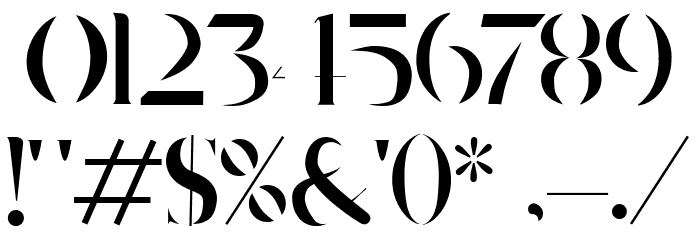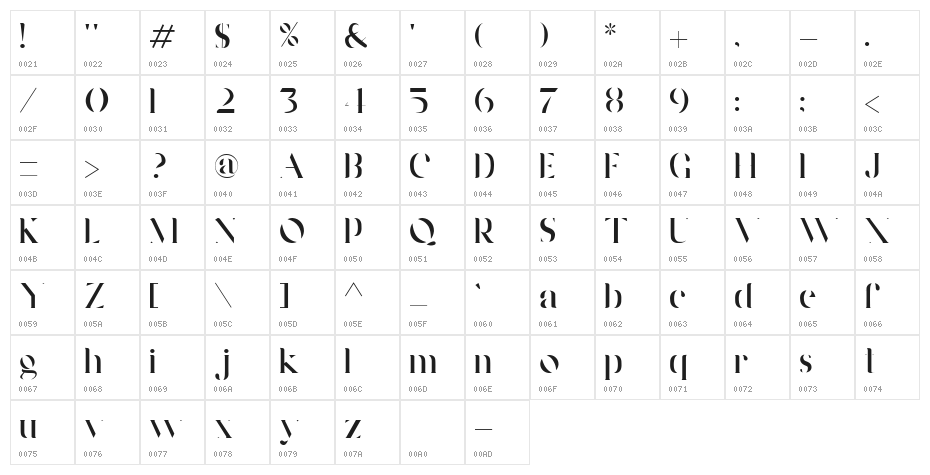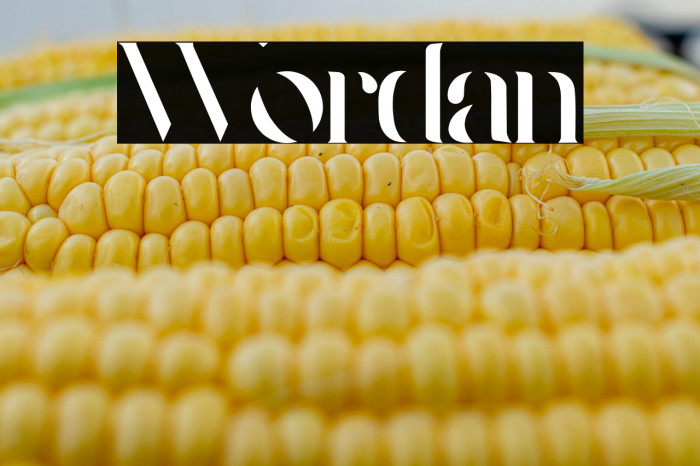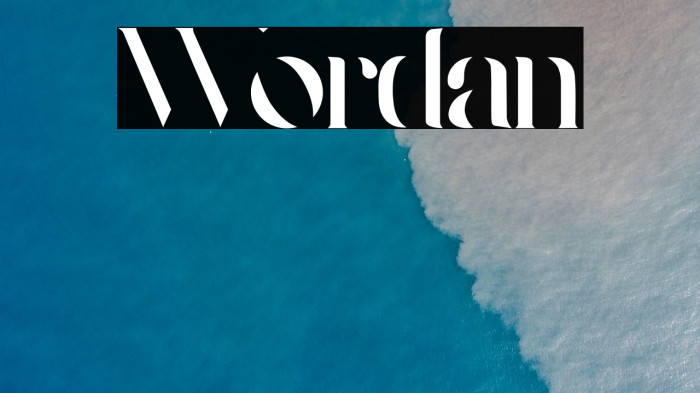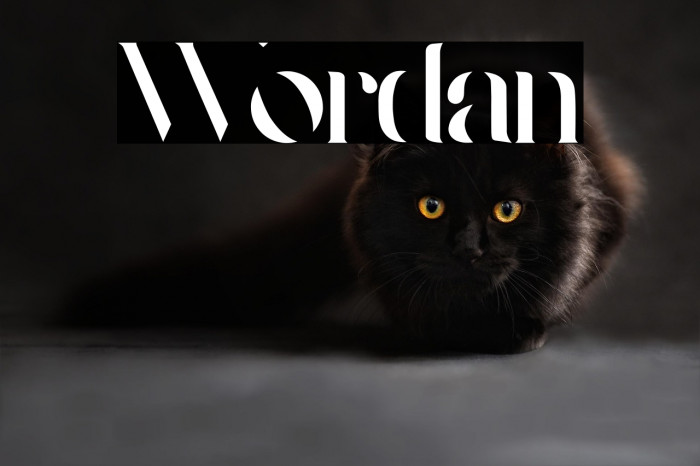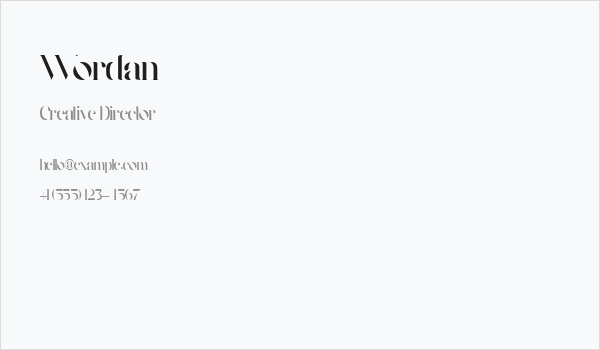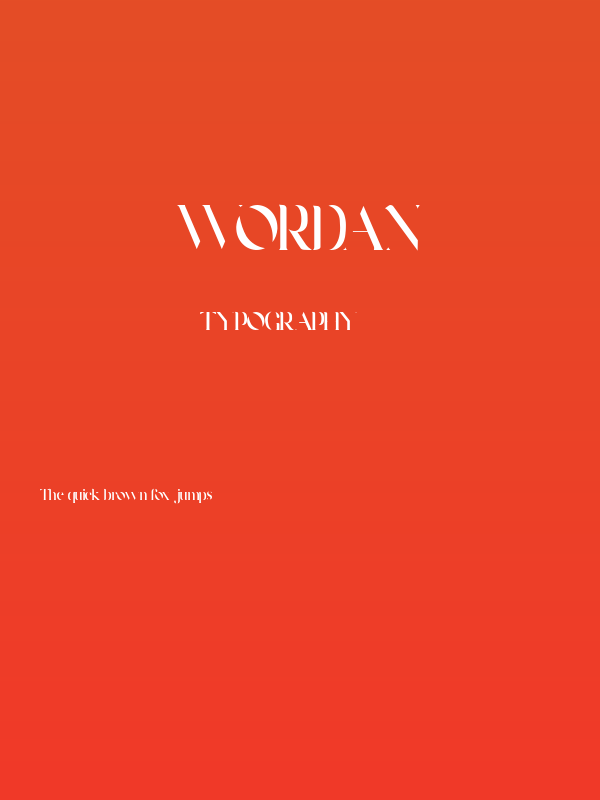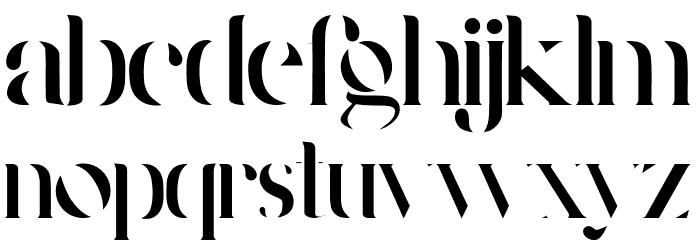
Wordan Font
Wordan Description
This font features a striking and modern design with high contrast between thick and thin strokes, creating a dramatic and elegant appearance. The characters are crafted with sharp, angular cuts and smooth curves, giving it a unique and artistic flair. The uppercase letters are bold and commanding, while the lowercase letters maintain a consistent style with a slightly softer touch. The numbers and special characters are designed to match the overall aesthetic, ensuring a cohesive look across all text. This font is ideal for making a bold statement in any design project.